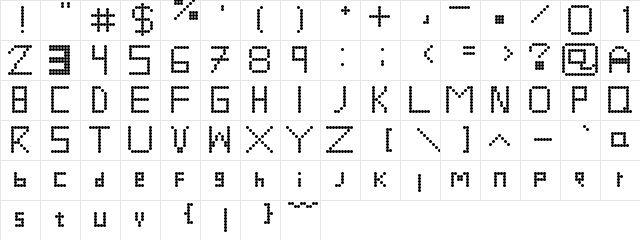
RetroVolution Regular
Design Context for RetroVolution Typeface
RetroVolution wears its vintage influences proudly, with letterforms that recall mid-century signage, classic packaging, and nostalgia-driven design.
Font Pairing: Combine RetroVolution with a simple slab or neutral sans — period-accurate companions reinforce the vintage feel without competing for attention.
Pro Tip: Lean into RetroVolution's period character by pairing it with aged paper textures, muted colour palettes, and vintage illustration styles.